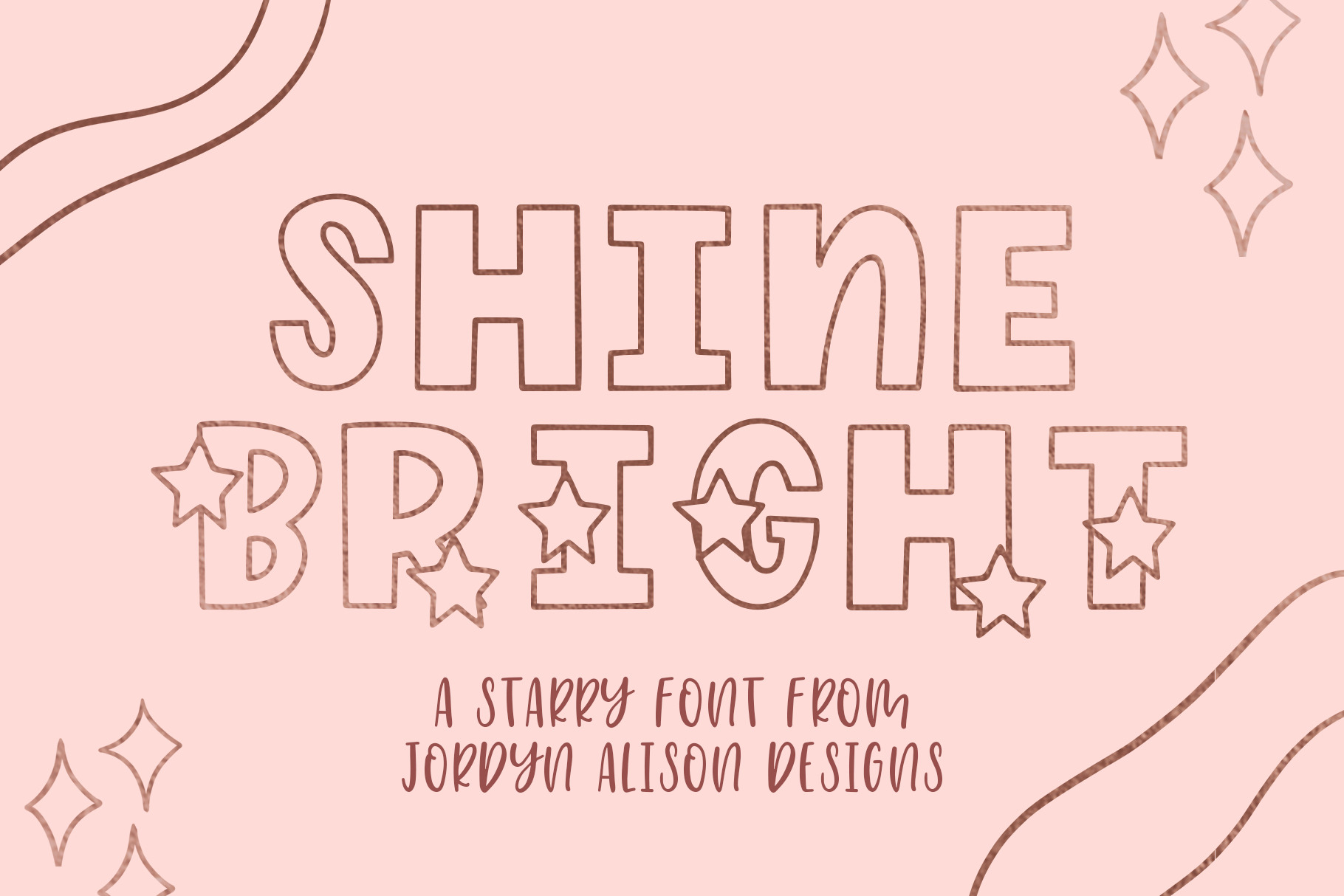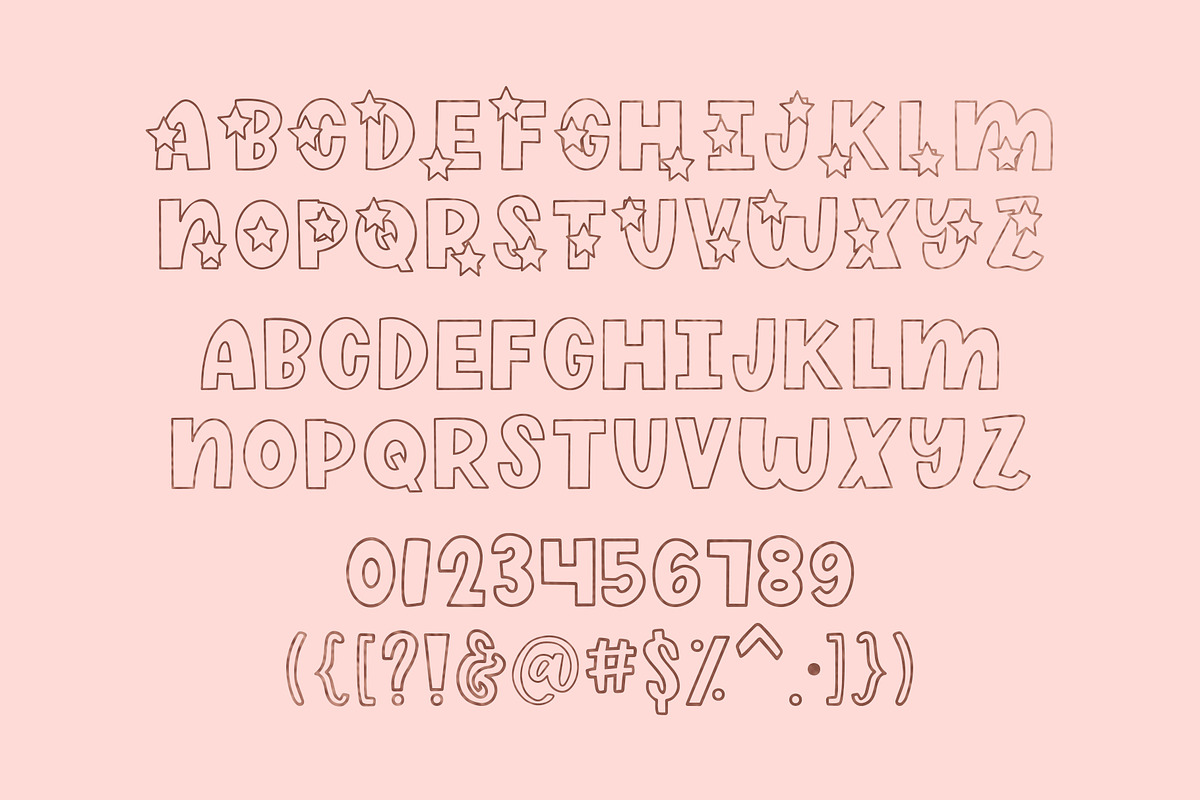
Shine Bright, Star Font
Introducing Shine Bright, a fun starry font by Jordyn Alison Designs!
Shine Bright font features:
- Stars in the capital letters
- Plain outlines for the lowercase letters
- Numbers and limited punctuaion